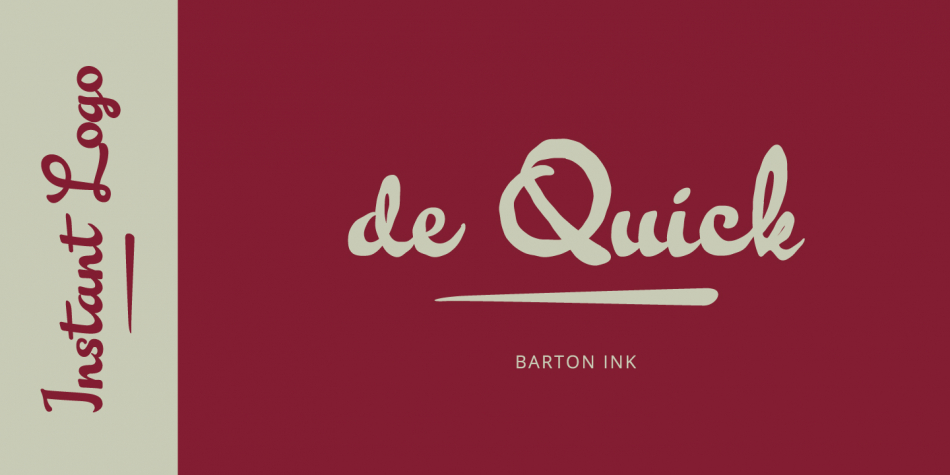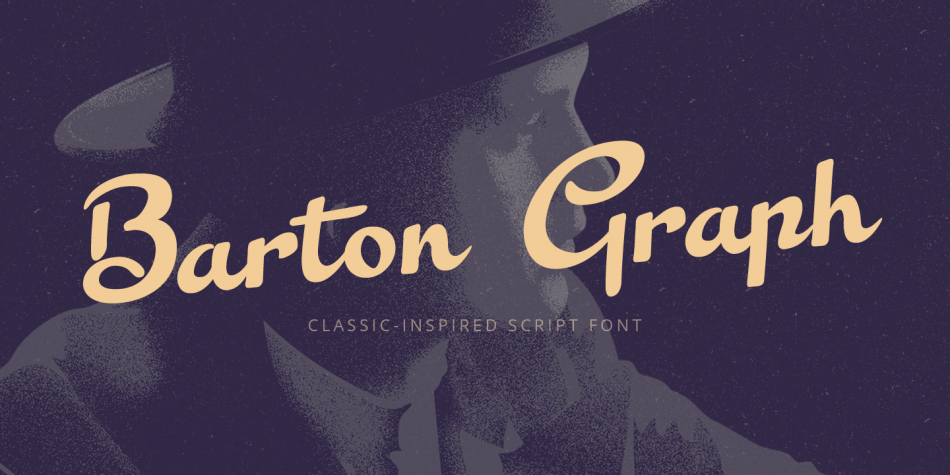
Barton Graph
Barton Graph Script Font
Introducing the new Barton Graph script font,  inspired by classic handwriting and calligraphy.
Perfect for logos, branding, autograph, book covers, album covers, posters, business cards, packagings, advertising, editorial and publishing, much more!